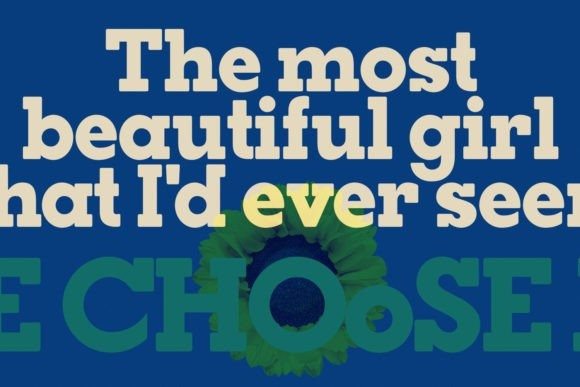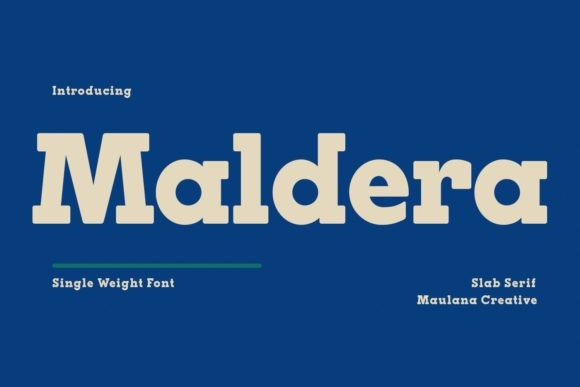
Maldera Font
Maldera Font is a casual slab serif display font. Bold stroke, fun character with a bit of ligatures and alternates. To give you an extra creative work. Maldera font support multilingual more than 100+ language. This font is good for logo design, Social media, Movie Titles, Books Titles, a short text even a long text letter and good for your secondary text font with script or serif. Make a stunning work with Malderafont.